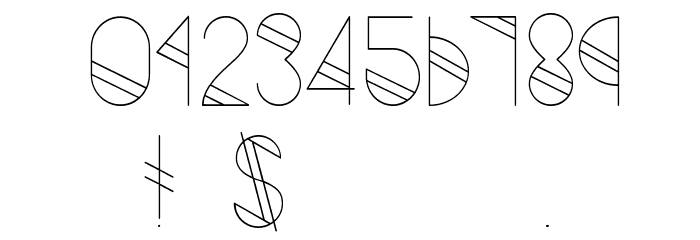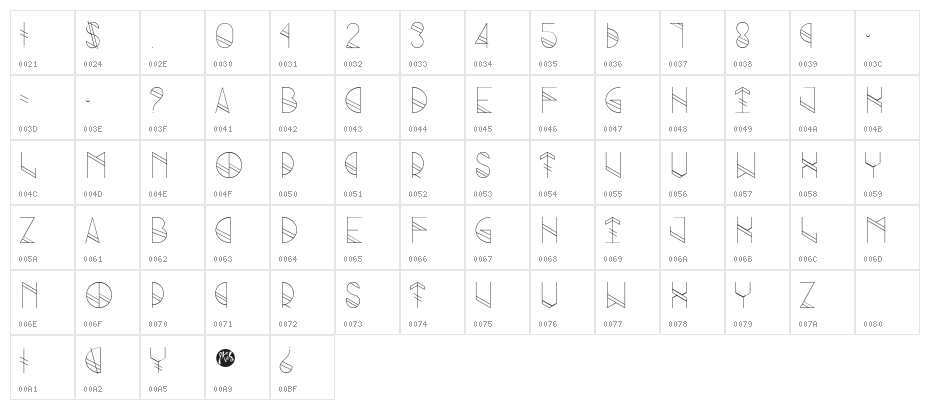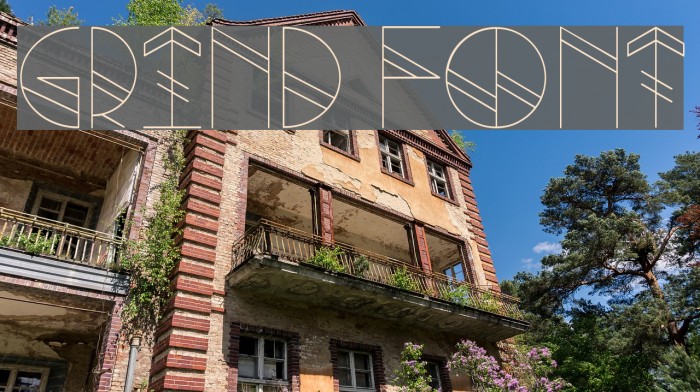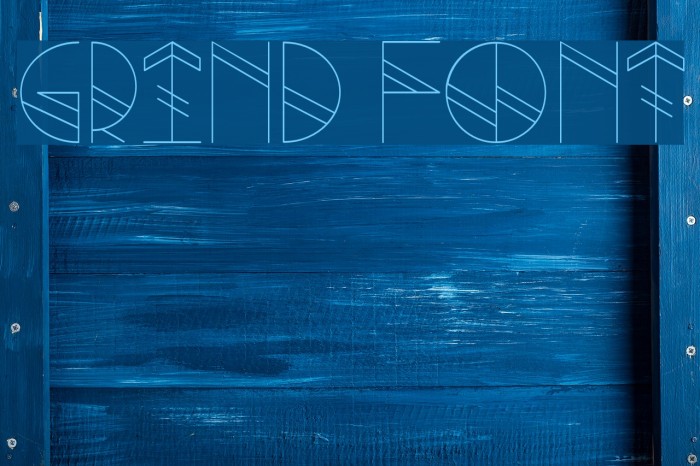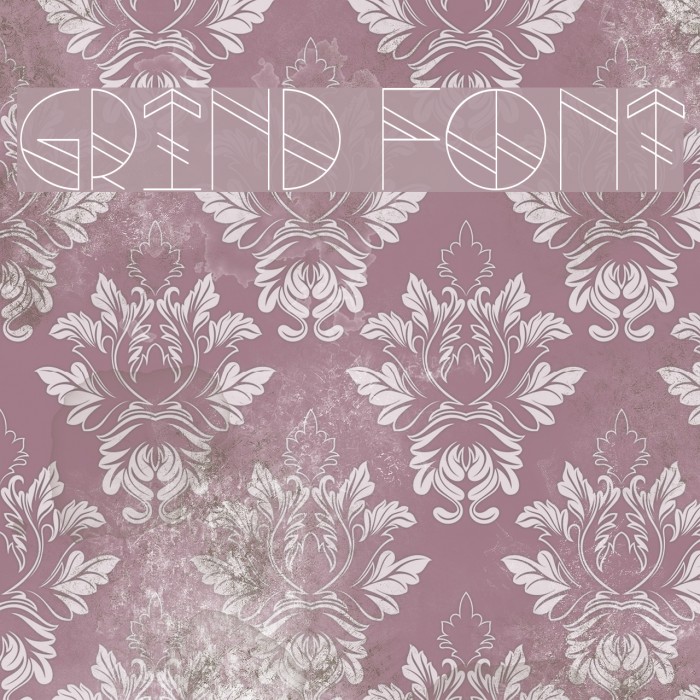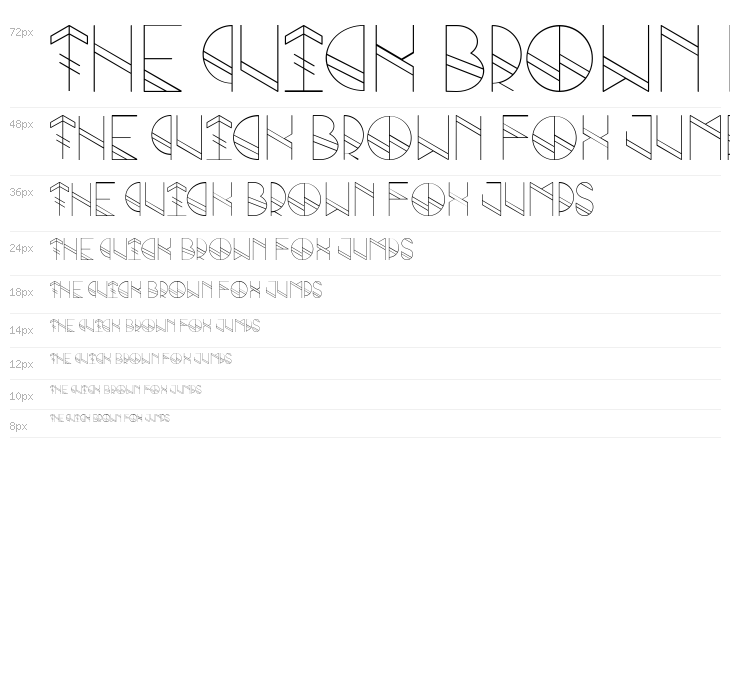
Grind Font
Grind Description
This font features a geometric and abstract design, characterized by its use of thin lines and angular shapes. Each character is constructed with a series of intersecting lines and curves, creating a sense of movement and complexity. The uppercase and lowercase letters maintain a consistent style, with a focus on symmetry and balance. Numbers and special characters follow the same design principles, ensuring uniformity across the entire set. The font's unique style makes it stand out, offering a modern and artistic appearance that is both eye-catching and sophisticated.
| Use Case | Logos, Headlines, Artistic designs |
| Proposed Projects | Ideal for modern art projects, branding, logos, and creative posters. |